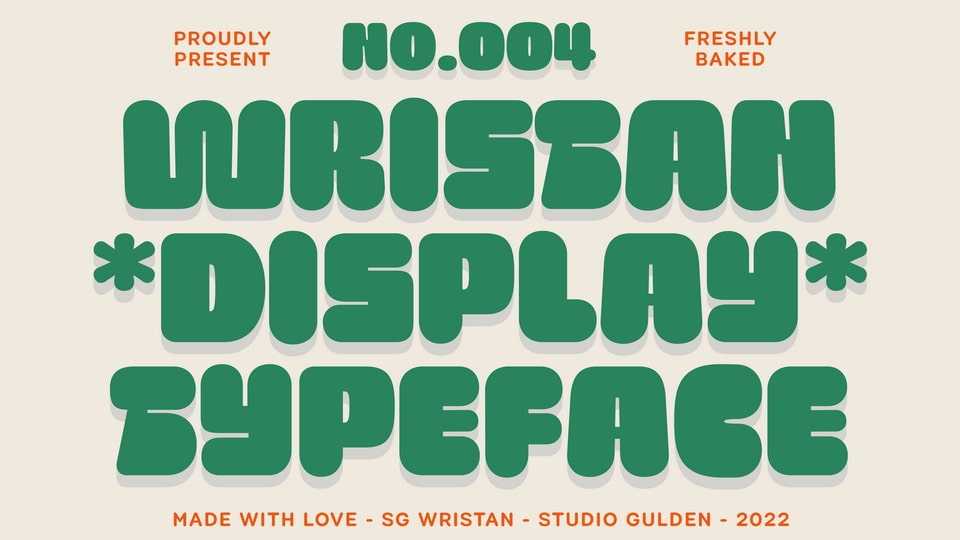
Download SG Wristan font, a display typeface with a bold style. It’s perfect for display design that needs pop, fun, and playful vibes on it.
Designer: Studio Gulden